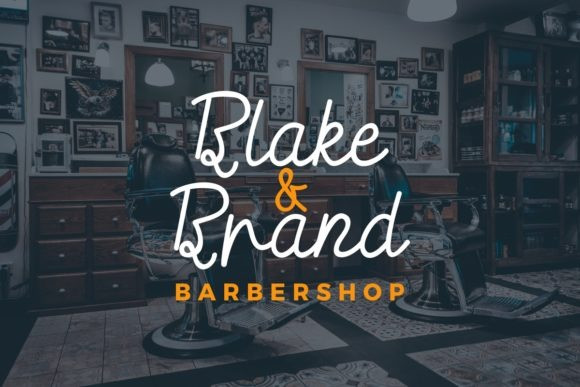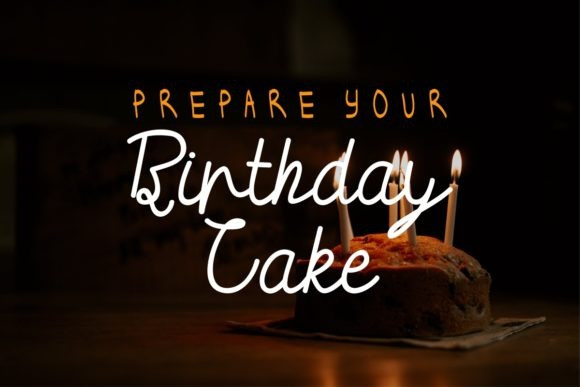
Lithonia Script Font
Lithonia is a calligraphy script font in stylish style. You can see the demo font below
Lithonia Calligraphy Font will be great for any of your special projects including : weddings, promotion, events, branding, advertising, magazine, shopping, signage, invitation, stationery, social media posts, product packaging, product designs, label, photography, watermark or and any projects that need handwriting style. Lithonia Font includes full set of gorgeous uppercase and lowercase letters, numerals, a large range of punctuation and ligatures. We made the font looks realistic handwritten looks, giving realistic hand-lettered font style.